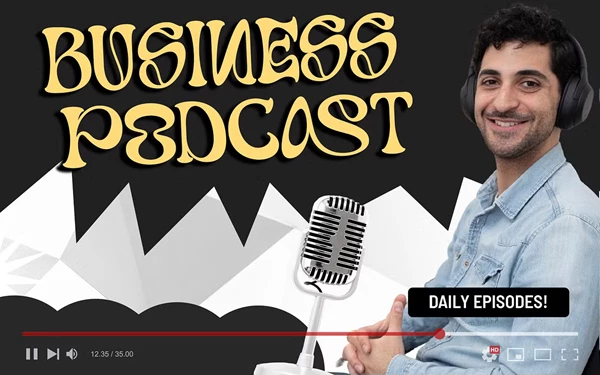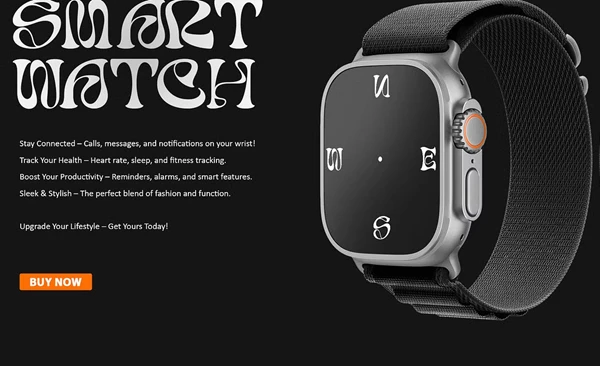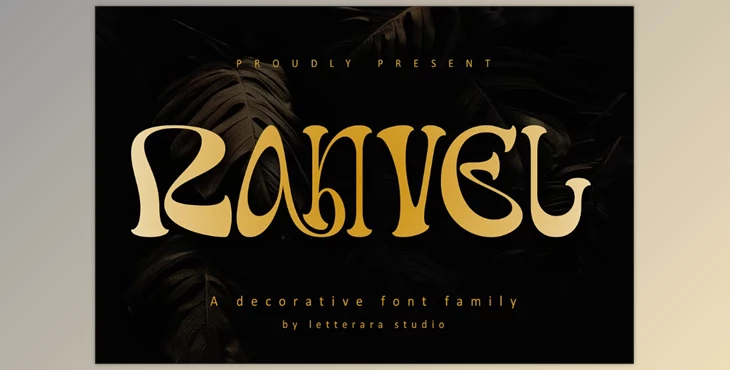
Ranvel Font:
Uncover the beauty of Ranvel, a serif typeface font that aptly fuses sophistication and modern flexibility. With Regular, Italic, Bold, and Bold Italic styles, Ranvel is designed to augment refined typography, thus serving well for editorial designs, luxury branding, book cover, and high-end packaging. Its sophisticated letter forms, together with its distinctive serifs, are bold and captivating. Furthermore, PUA encoding grants effortless access to unique glyphs, allowing for smooth modifications. From headlines to invitations, design them all with the elegance of Ranvel and elevate the class of every creative endeavor.
Some great features of Ranvel Font:
- Multilingual Support: Supports characters like ä, ö, ü, Ä, Ö, Ü, ß, ¿, ¡
- Full Character Set: Complete with lowercase and uppercase letters, numbers, and punctuation marks
- Typography Enhancements: Provide alternates, swashes, and ligatures